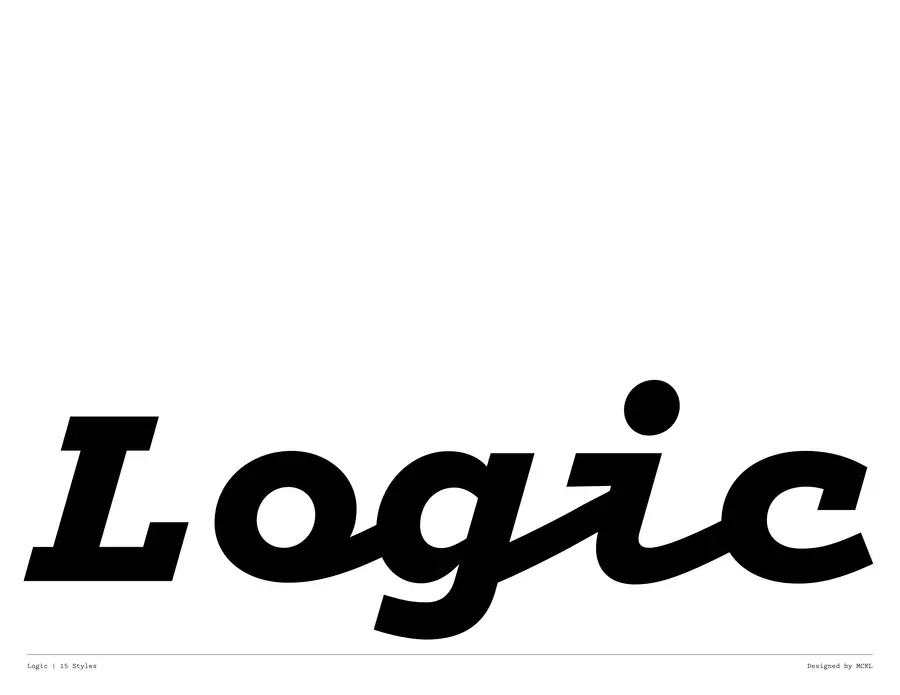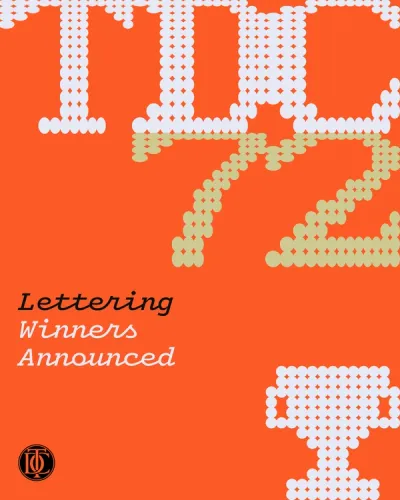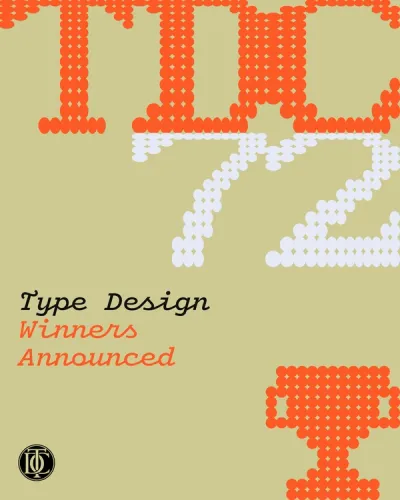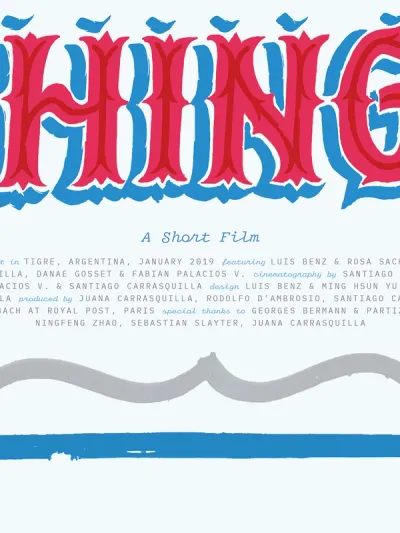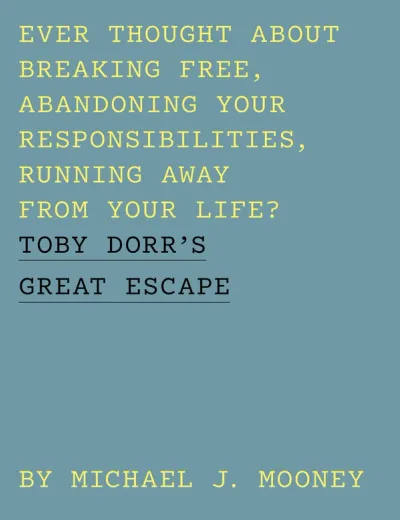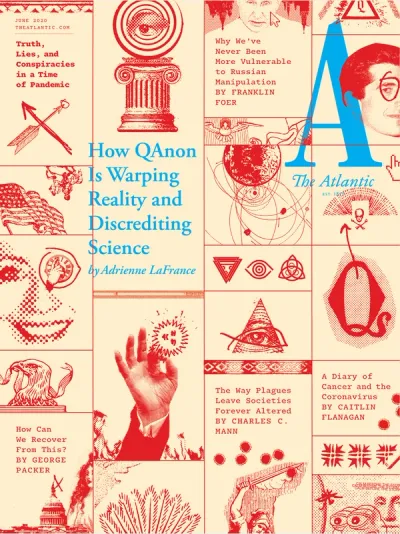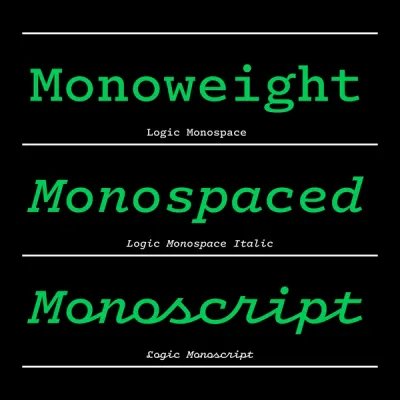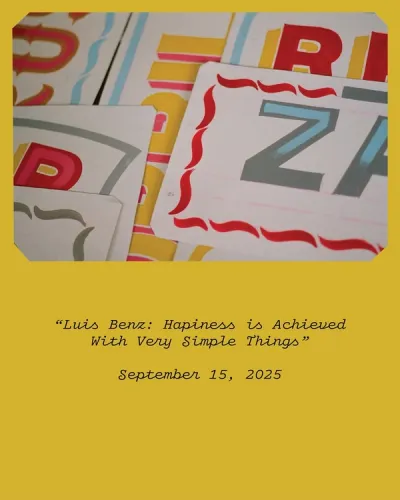
Logic
- 15 styles Monospace and Monoscript 5 weights in Roman and Italic
- Designed by Jeremy Mickel Published in 2019
- With assistance by Douglas Hayes
Logic is a warmly technical monospace typeface in 5 weights of roman and italic styles, with a special connecting script version.
The design takes inspiration from midcentury typewriter fonts, including IBM Selectric’s Advocate and the ubiquitous Courier, with additional references in slab serifs like Stephenson Blake’s Scarab. While there are many great script typewriter fonts, including Olympia and Aristocrat, Logic monoscript is a novel creation, with few examples of true connecting monospace scripts in existence.
OpenType Features
Case-sensitive Punctuationcase
Roman schoolbook ass01
Alt #ss07
Italic looped lss02
Italic looped jgyss03
Italic script ELSTss05